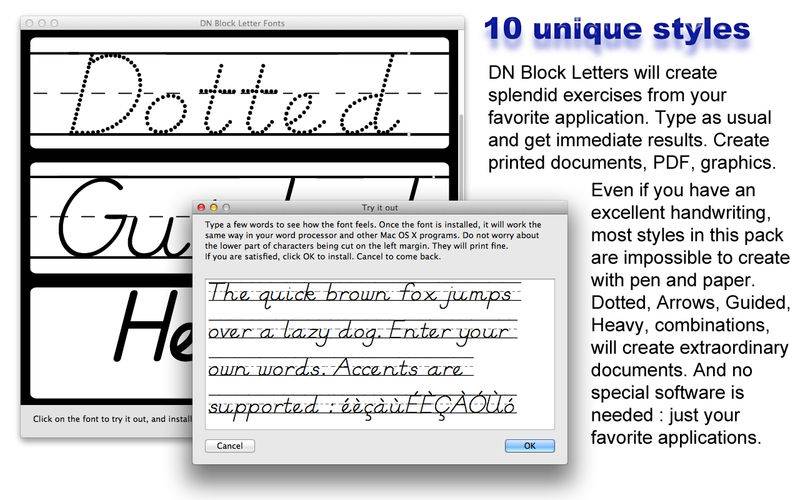
10 Block Letter Fonts to create worksheets and exercises conforming to the D’Nealian method.
This way of teaching handwriting can be better because it does not require as many lifting the pencil from paper, and it facilitates transition from block letters to cursive, as letterforms are much closer.
Letters can be printed in color, as well as very big, for posters and cards to show the whole class, as well as banners. Many teachers use these fonts to print pupil names on stickers, for back to school.